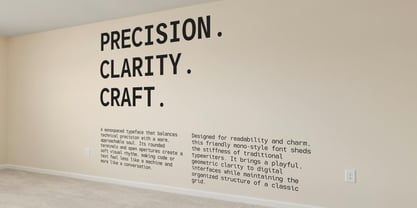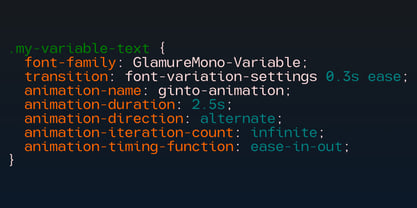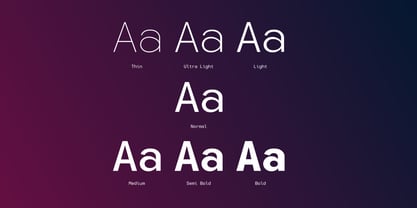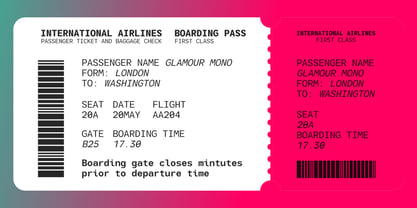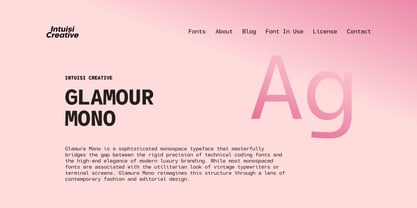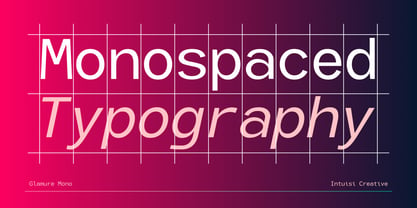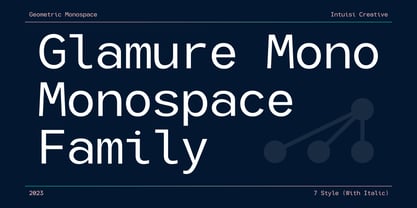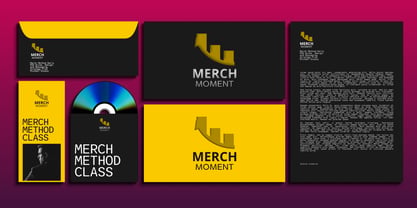
Glamure Mono
The Glamure Mono Font Family was designed by Sadat Fauzi, Intuisi Creative and published by Fauzistudio. Glamure Mono contains 14 styles and family package options. More about this family
Glamure Mono is a sophisticated monospace typeface that masterfully bridges the gap between the rigid precision of technical coding fonts and the high-end elegance of modern luxury branding. While most monospaced fonts are associated with the utilitarian look of vintage typewriters or terminal screens, Glamure Mono reimagines this structure through a lens of contemporary fashion and editorial design.